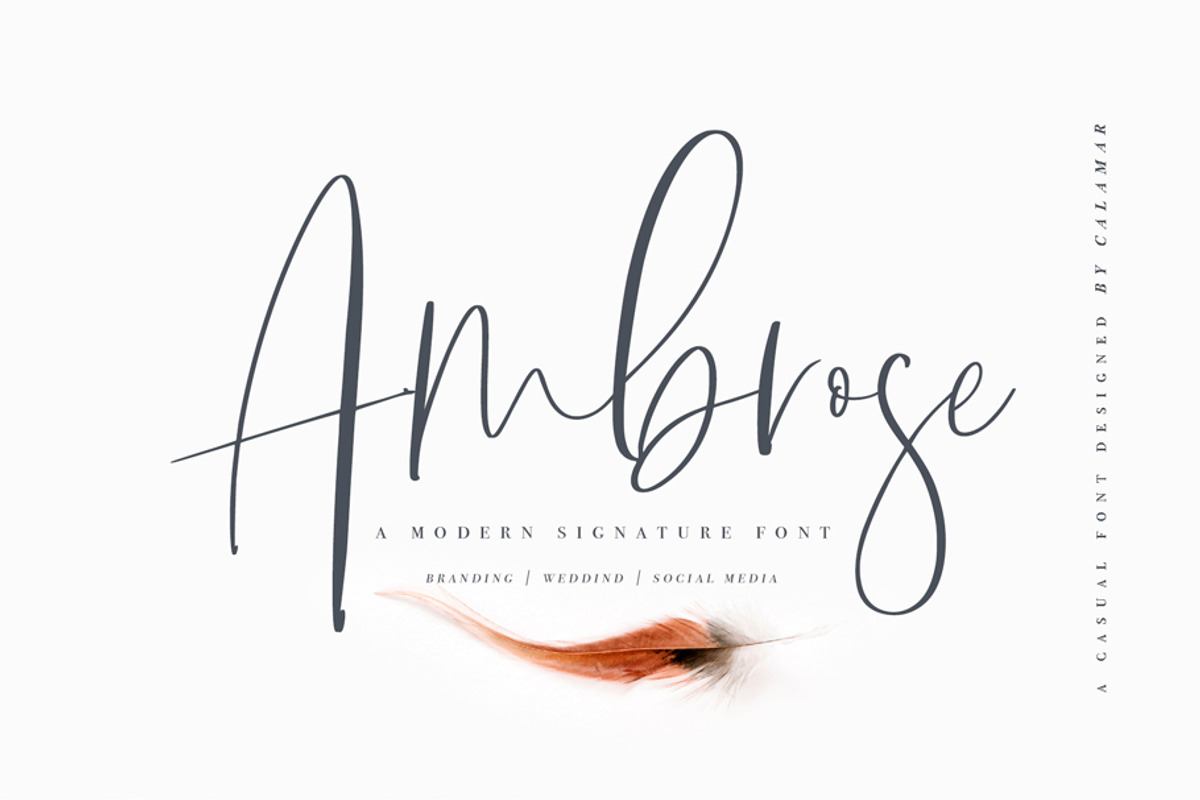
Introducing Ambrose Font Free Download, a handwritten signature typeface designed by Calamar. This elegant font features smooth, flowing lines and connected characters, making it ideal for branding, social media headers, product packaging, wedding invitations, and cards. Its natural calligraphic style adds a personal touch to any design project. The font includes ligatures and stylistic alternates to enhance its authenticity and versatility. Download Ambrose Font Free Download to explore its features in personal projects. For commercial use, please ensure you purchase the appropriate license. Elevate your designs with the sophisticated charm of Ambrose Font Free Download